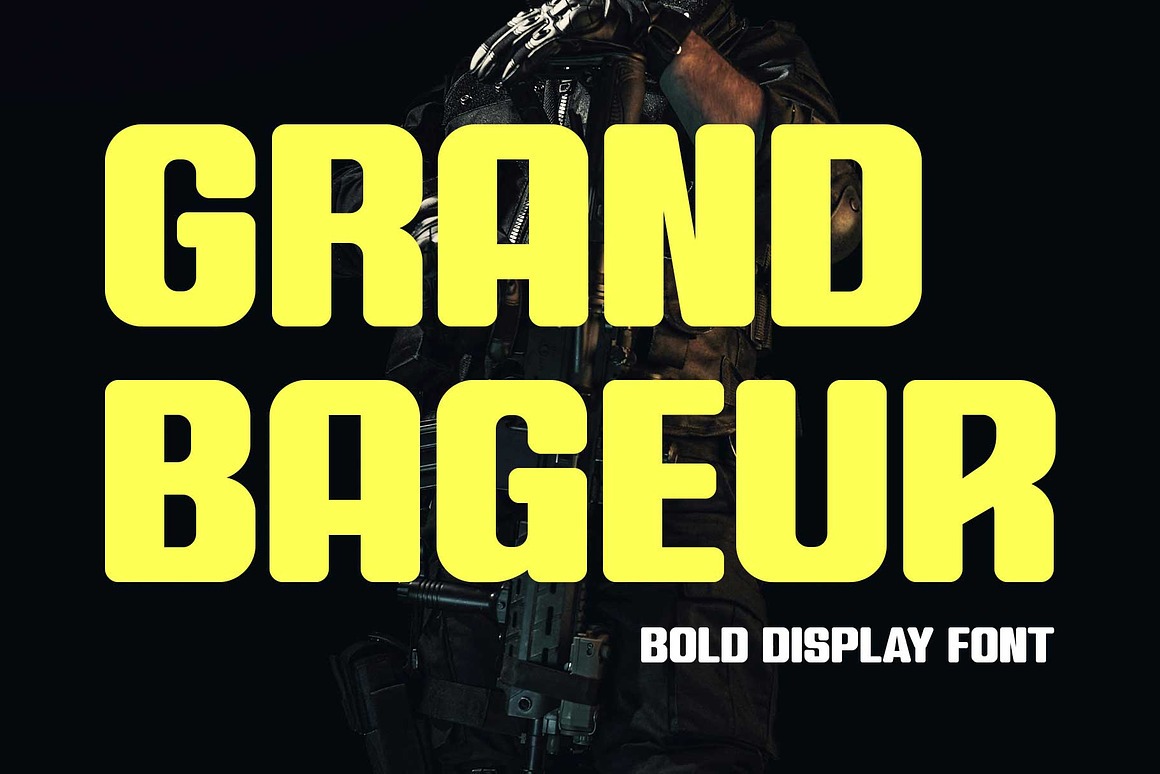
Grand Bageur Font
About Grand Bageur
Meet Grand Bageur, a font that combines sporty strength with elegance. Its condensed, rounded-edge design makes it the perfect choice for logos, branding, and urban style projects. Whether you’re working on sports merchandise, posters, or headlines, Grand Bageur’s bold look in regular and slanted styles delivers a sleek, professional finish.